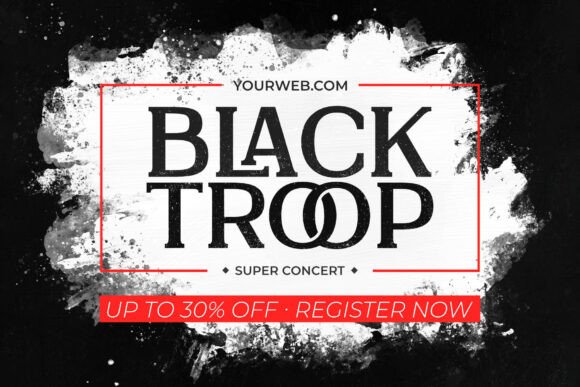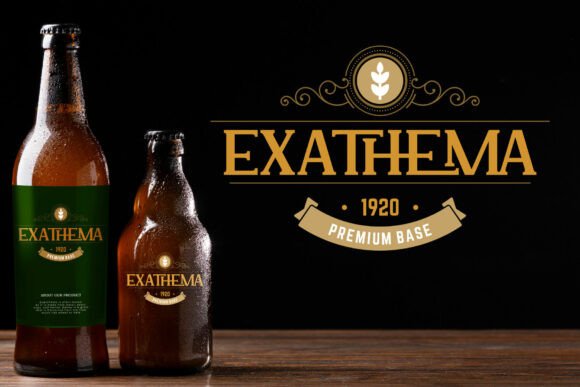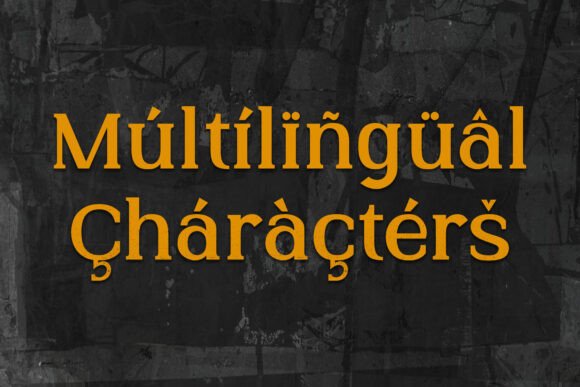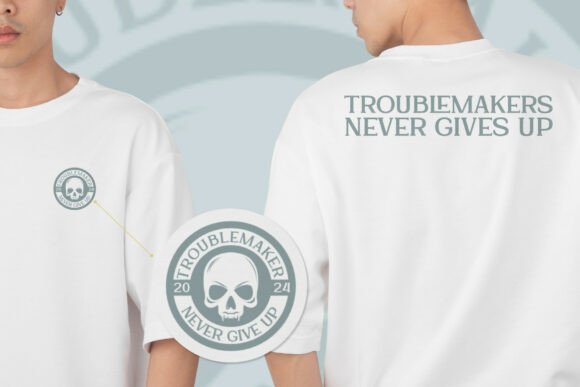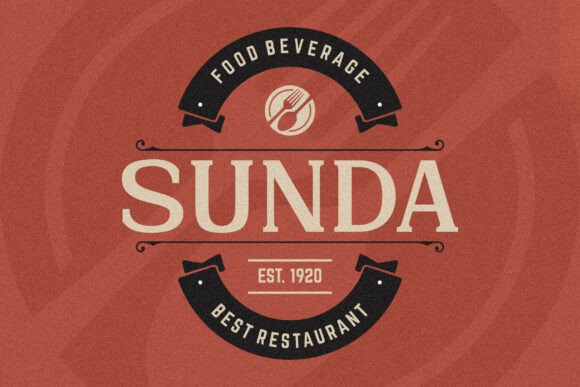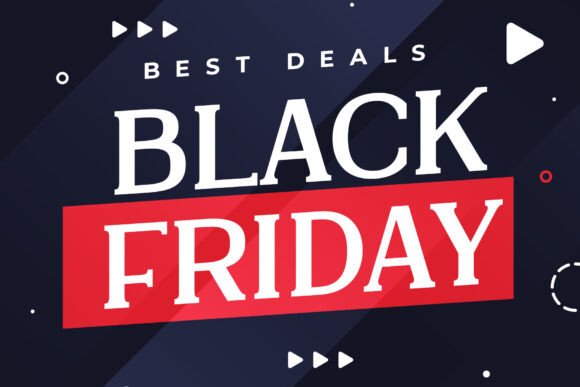
Discover the Power of Doghelia Font: Elevate Your Designs with Confidence and Style
I’ll never forget the design project that led me to discover Doghelia Font. I was working on a branding campaign for a high-end fashion label, and I needed a font that would make a statement. I spent hours scouring the internet for the perfect bold serif font, but nothing seemed quite right. That was until I stumbled upon Doghelia. Its strong, chunky serifs and clean lines immediately caught my eye, and I knew I had found the one.
A Personal Review: What I Love About Doghelia
So, what makes Doghelia so special? Here are a few things that I absolutely love:
- ✨ Confidence-inspiring boldness: Doghelia’s chunky serifs and clean lines make it perfect for designs that demand attention.
- ✅ Extensive ligature collection: With a wide range of ligatures, you can create unique and elegant typography that sets your design apart.
- 💡 Versatility: Doghelia is a powerhouse font that can be used for everything from logotypes to headlines.
- 📚 Sophisticated yet approachable: Doghelia’s modern flair makes it perfect for designs that need to be both elegant and accessible.
While Doghelia is an amazing font, there are a few things to keep in mind:
- ⚠️ Legibility at small sizes: Like many bold serif fonts, Doghelia can be a bit tricky to read at very small sizes. Make sure to test it out before committing to a specific use case.
- 🤔 Overuse of ligatures: While Doghelia’s ligatures are a powerful tool, it’s easy to overdo it. Make sure to use them sparingly to avoid overwhelming your design.
The Backstory Behind Doghelia
According to its creators, Doghelia was inspired by the classic serif fonts of the past, but with a modern twist. The goal was to create a font that was both elegant and approachable, with a strong sense of confidence and style. Whether or not you agree with that assessment, one thing is clear: Doghelia is a truly unique and special font.
| What makes Doghelia so special? | Doghelia’s unique combination of strong, chunky serifs and clean lines, along with its extensive ligature collection, make it a standout font. |
| Is Doghelia suitable for body text? | While Doghelia is a beautiful font, it’s primarily designed for display use. It may not be the best choice for body text, especially at small sizes. |
| Is Doghelia easy to read? | Doghelia is a bold font, and as such, it can be a bit challenging to read at small sizes. However, its clean lines and classic serif design make it easy to read at larger sizes. |